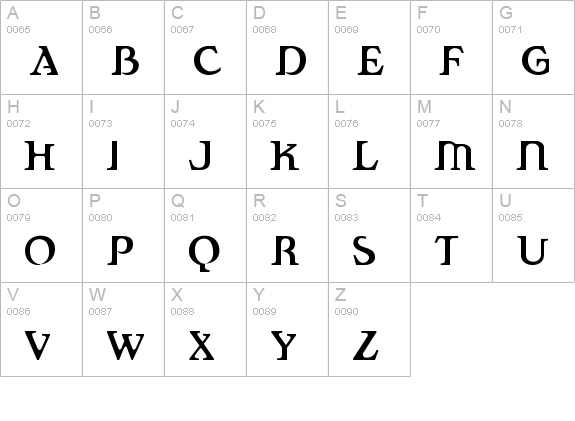
FandangoBold Font Details
Introducing FandangoBold font, a versatile and eye-catching typeface perfect for making your designs stand out. With its bold and modern look, FandangoBold is sure to make a statement in any project. This font exudes a sense of confidence and style, making it ideal for headlines, banners, and other attention-grabbing elements. What sets FandangoBold apart is its unique blend of strong, bold lines and elegant curves, creating a harmonious balance that captures the viewer's attention. Whether you're designing a poster, logo, or website, this font will add a touch of sophistication and flair to your work. Best of all, FandangoBold is available for free download at FontsMarket.com. So why wait? Add this dynamic font to your collection today and unleash your creativity with FandangoBold.